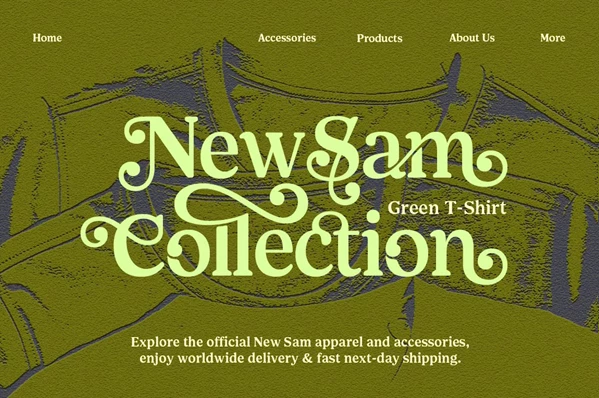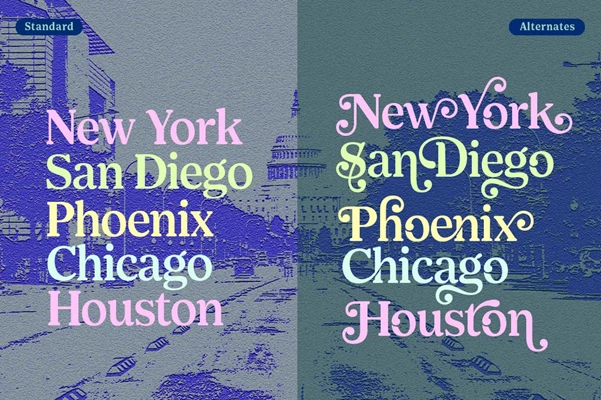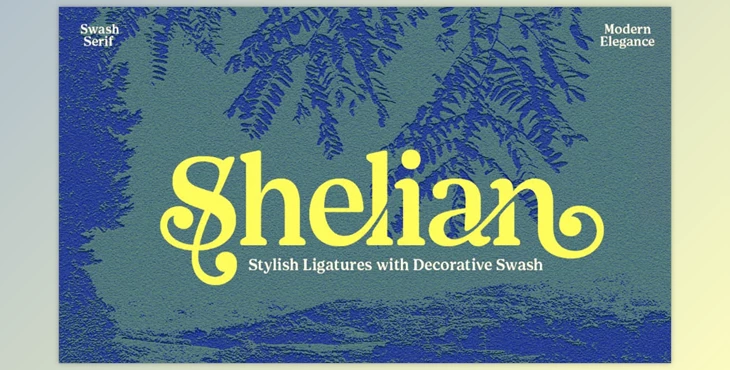
Shelian Typeface:
Shelian swash serif typeface differs from others in the sense that it preserves vintage aesthetics and at the same time is modern sophisticated. This font is appealing owing to the smooth curves, ornate swishes, and elegant ligatures that imbue a retro feel to modern designs alongside the advancements that came in the 1960s and 1970s. In addition to its two styles, Shelian offers more than 555 glyphs and 230+alternate letters.
Shelian comes equipped with full PUA encoding, multilingual capability, and skeletal boundless creativity for any design venture, especially in typography.
Its rich OpenType features include Stylistic Alternates, Discretionary Ligatures, Swash, and Standard Ligatures offer smoothness and make changes to the letters easy. As for romantic weddings, lavish wedding logos, eye-catchy packages, and chic editorials can bear the sight of Shelian elegance and character.Notes vintage strokes with a modern flourish make Shelian the ideal typeface when looking for sophistication and nostalgia blended with modern aesthetics.